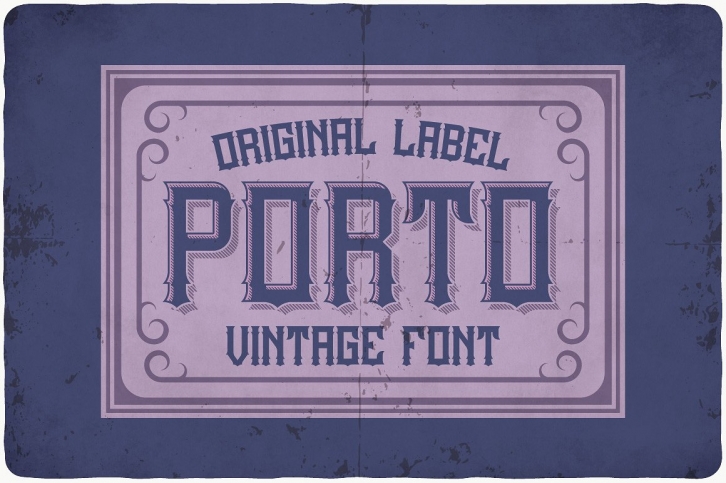
Porto is a gorgeous font that was realeased on January 12, 2019. The font can be used in many style contexts and design environments. Perfect for invitations, magazines, websites, logos, and more! It was designed by Vozzy Vintage Fonts And Graphics and the file size is 16.45 MB. Thanks for checking out this font!